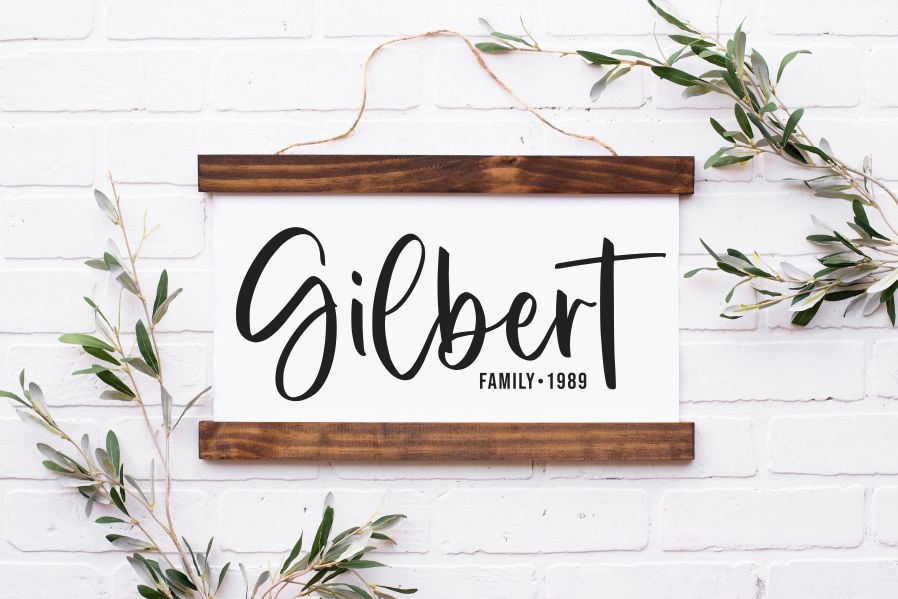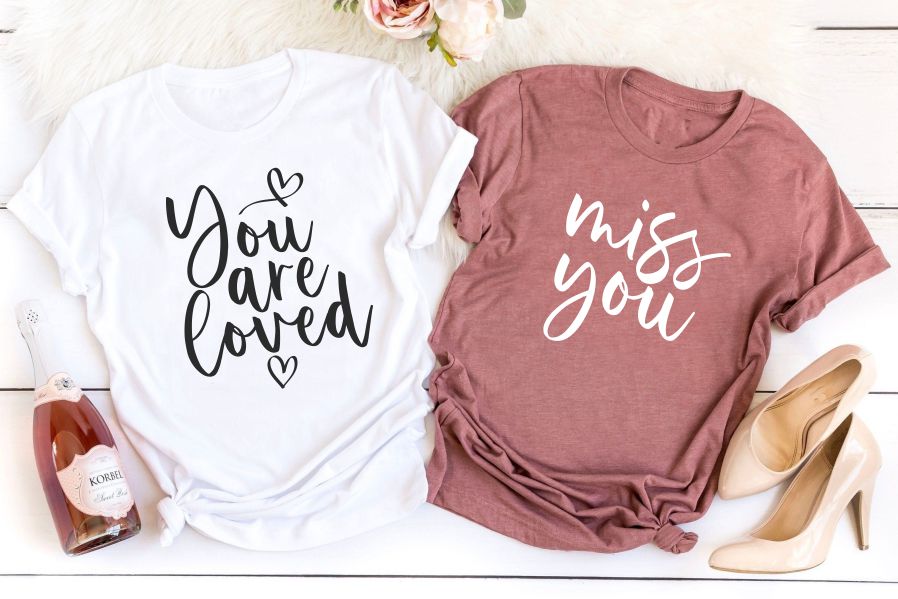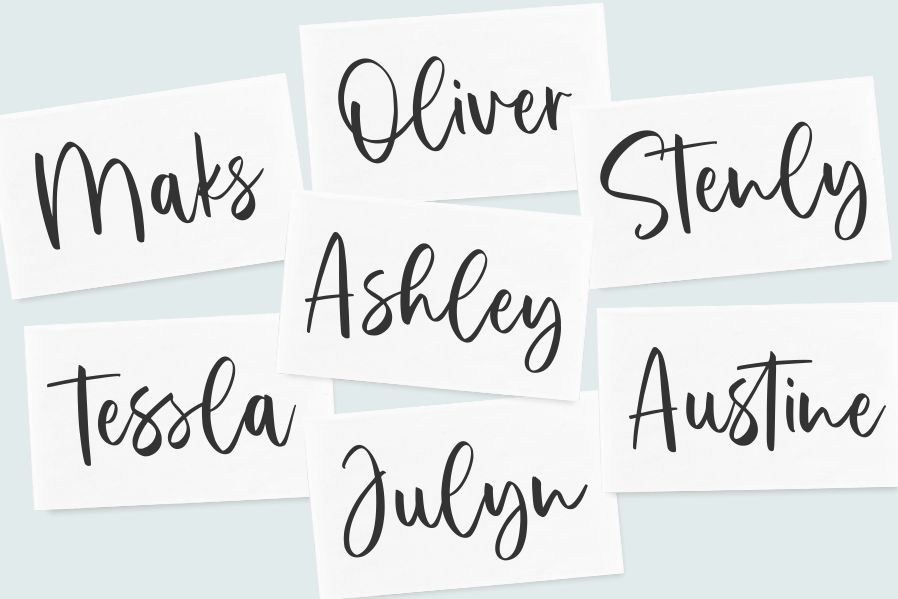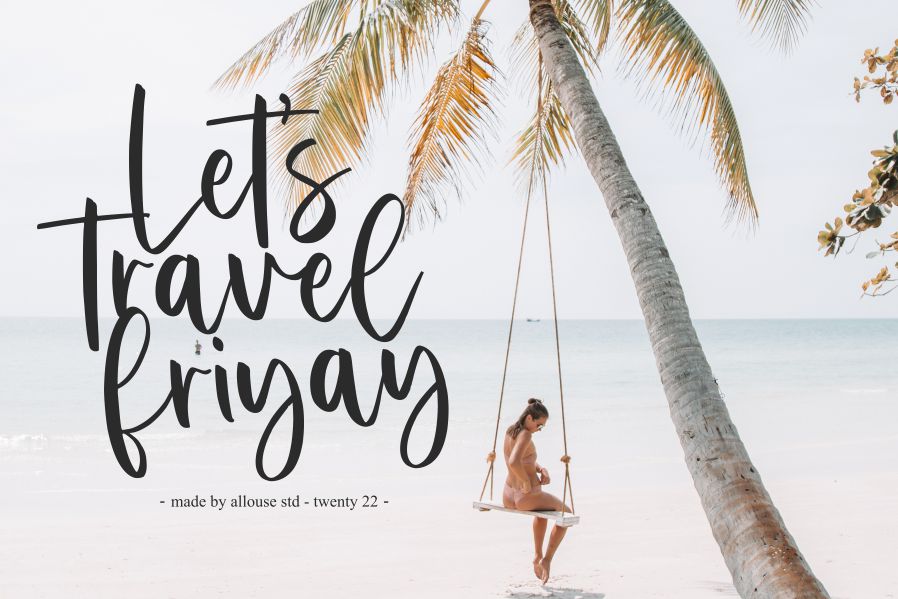
Jakarta Brittany Font
Jakarta Brittany Script Font
It’s A Handwritten Script Font. Jakarta Brittany is perfect for product packaging, branding project, megazine, social media, wedding, or just used to express words above the background. This font includes OTF&TTF&Woff, Jakarta Brittany also multilingual support.